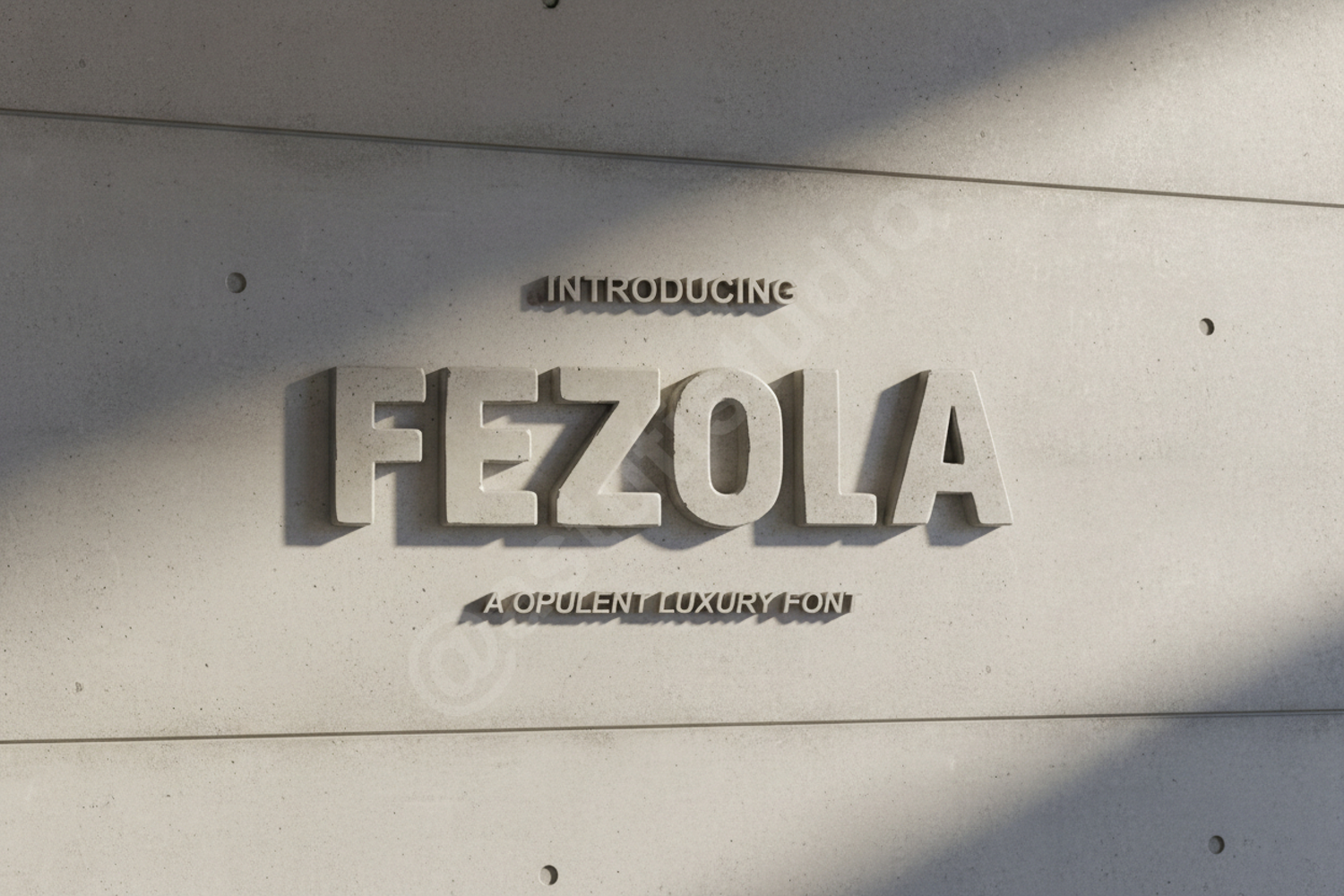
Fezola - Elegant & Modern Display Serif Font
Fezola
Fezola is a premium display serif font designed to bring a touch of luxury and sophistication to your creative projects. With its clean lines and unique character shapes, Fezola strikes the perfect balance between timeless tradition and contemporary style. This font is meticulously crafted to ensure high legibility while maintaining a high-end aesthetic that stands out in any design.
- Full character set including uppercase, lowercase, numbers, and punctuation
- Multilingual support for global accessibility